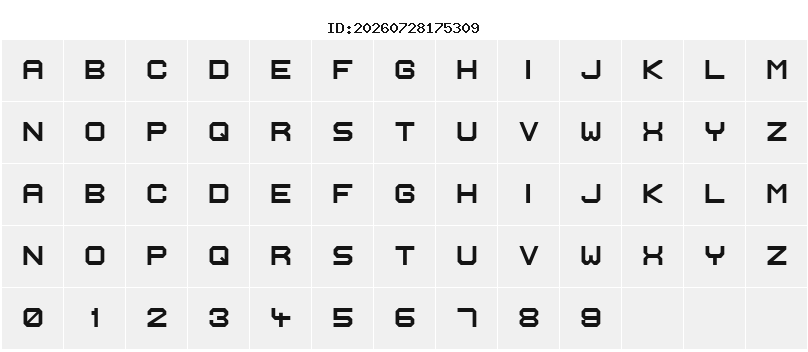
Ignis et Glacies Extra Sharp Preview
• Font Name: Ignis et Glacies Extra Sharp
• Full Font Name: Ignis et Glacies Extra Sharp Bold
• Version: Version 1.10 October 11, 2006, initial release
• Designer: Zdenek Gromnica aka FutureMillennium
About Ignis et Glacies Extra Sharp.ttf
Ignis et Glacies Extra Sharp.ttf is a modern, elegant sans-serif font designed for ultimate readability and visual harmony. Perfect for branding, headlines, web design, and print materials.